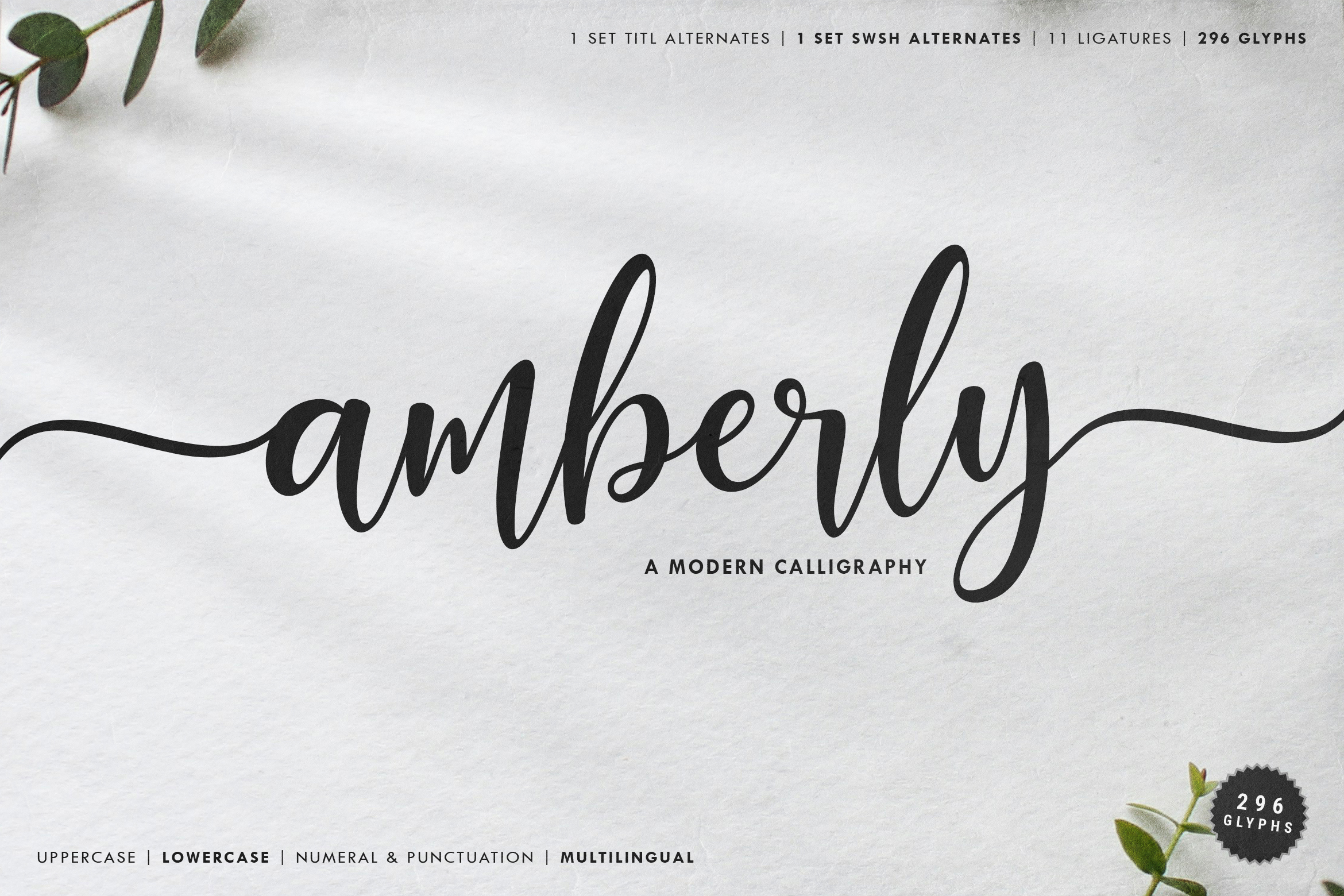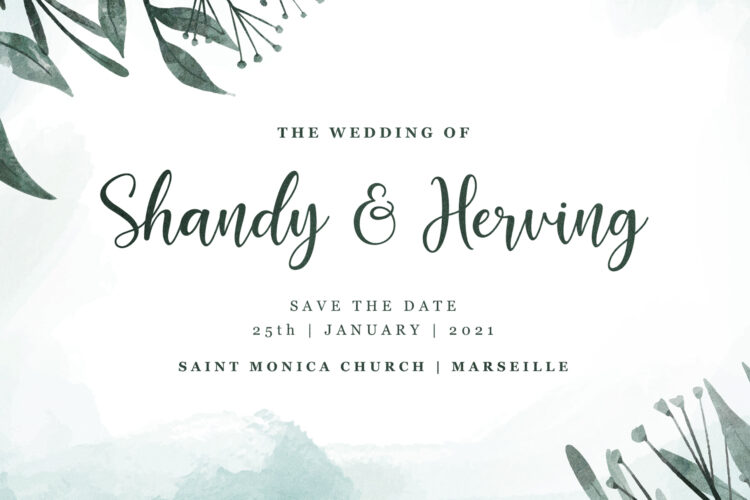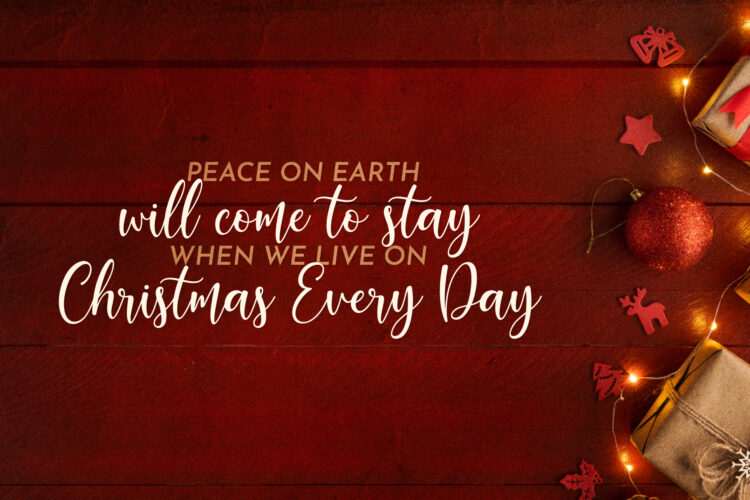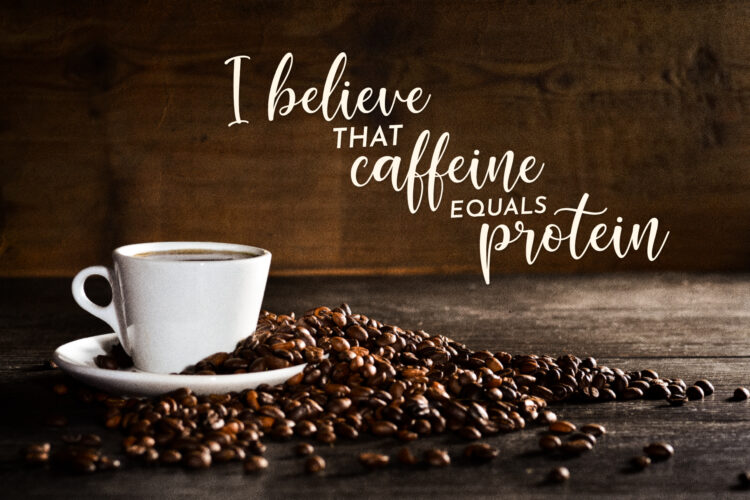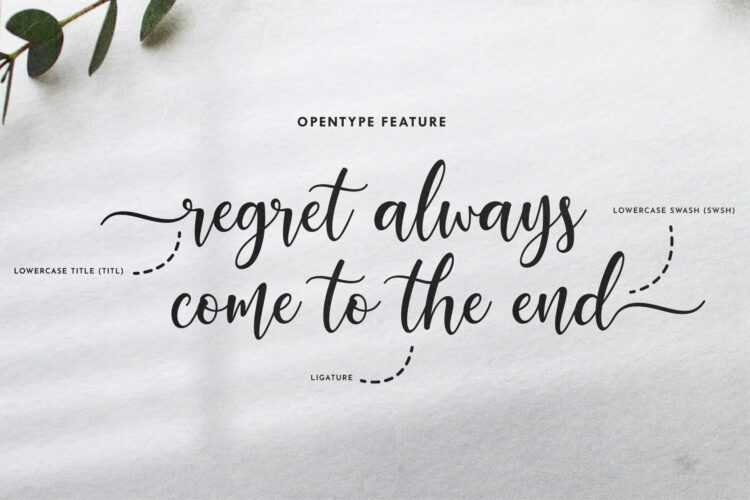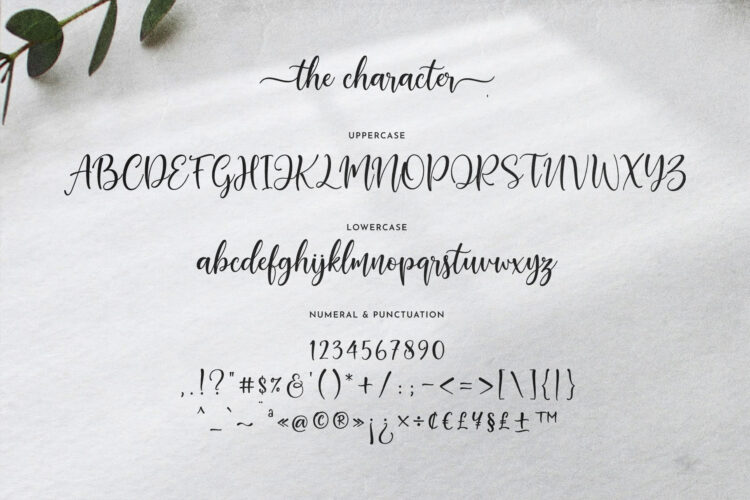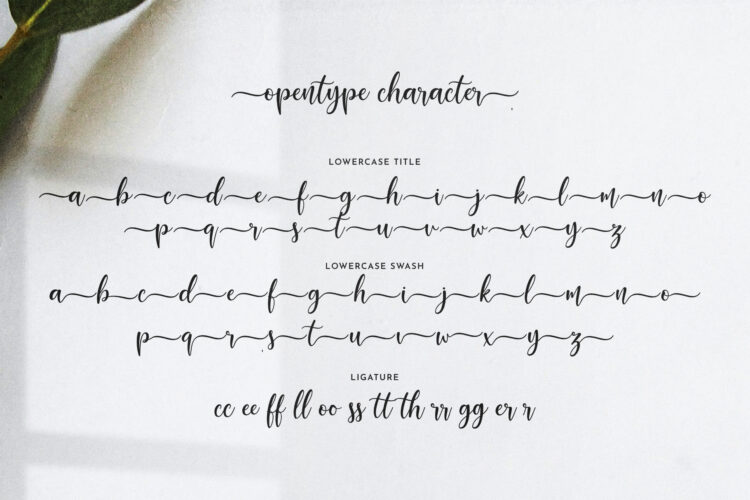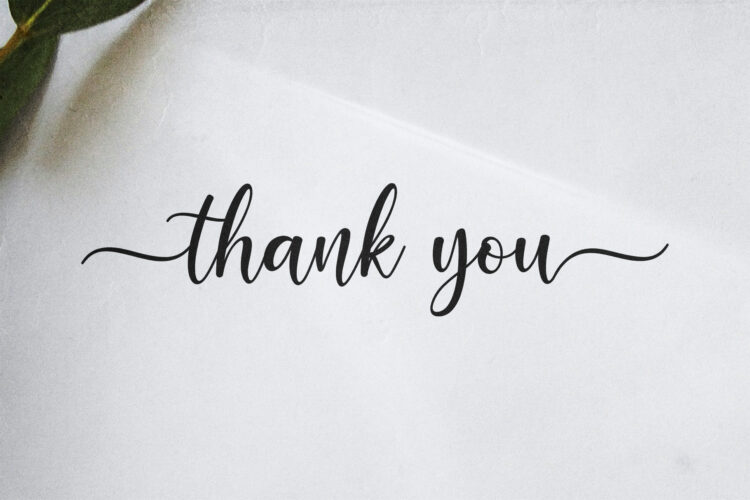
Amberly is a beautifully refined modern calligraphy font designed to elevate your creative projects with an air of elegance and charm.
Featuring 296 glyphs including swashes, stylistic alternates, ligatures, and multilingual support, this font is perfect for wedding invitations, feminine branding, photography logos, social media graphics, and upscale packaging.
Its graceful strokes and organic flow bring a handcrafted feel that adds sophistication and warmth to any design. Whether you’re creating stationery, blog headers, or romantic quotes, Amberly ensures a timeless and professional look.
Amberly – Modern Calligraphy Font